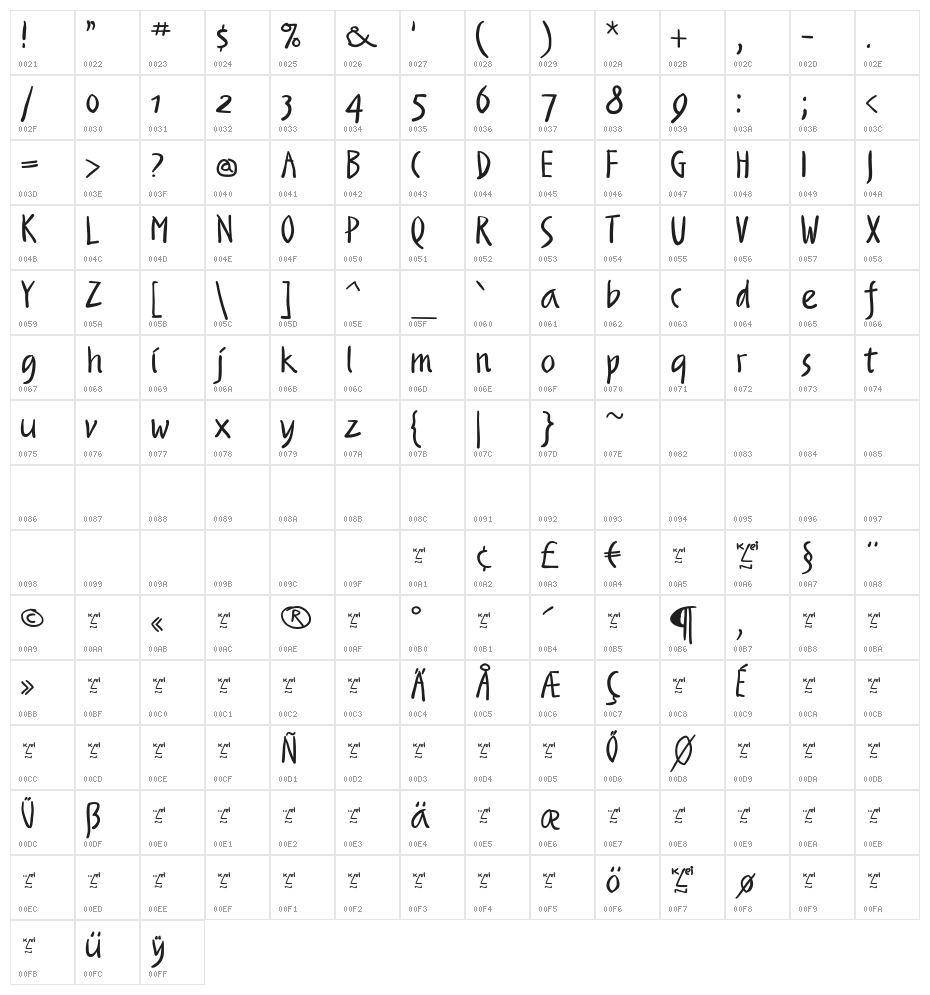
RightSo Font
RightSo Description
This font features a playful and informal handwritten style, characterized by its irregular and slightly whimsical letterforms. The strokes are bold and dynamic, giving a sense of movement and energy. The uppercase letters are tall and slightly narrow, while the lowercase letters maintain a consistent flow with a casual appearance. The numbers and special characters follow the same lively style, making the font suitable for creative and informal applications. The overall look is friendly and approachable, perfect for projects that require a personal touch.
| Overall Style | Playful |
| Use Case | Logos, Headlines, Informal Text |
| Proposed Projects | Ideal for greeting cards, children's books, playful branding, and casual invitations. |